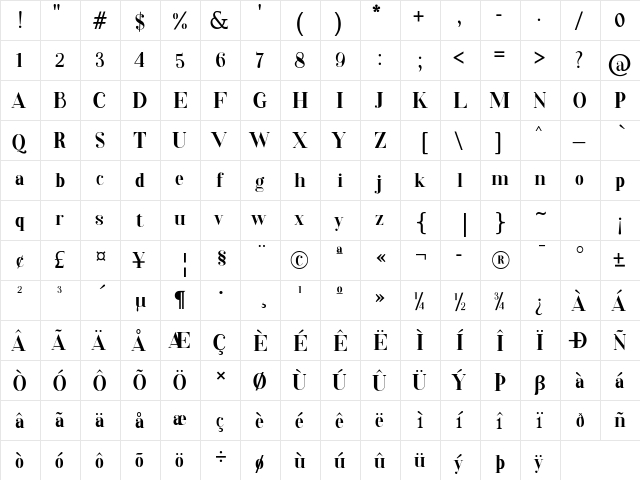
Drifter Seriff Regular
Design Context for Drifter Seriff Typeface
Drifter Seriff brings classic typographic sensibility to the table — its serifs and measured letterforms reflect centuries of print heritage.
Pro Tip: Use Drifter Seriff for editorial body copy and considered headline work. Pair with a neutral sans for UI elements or captions to create a classic hierarchy.